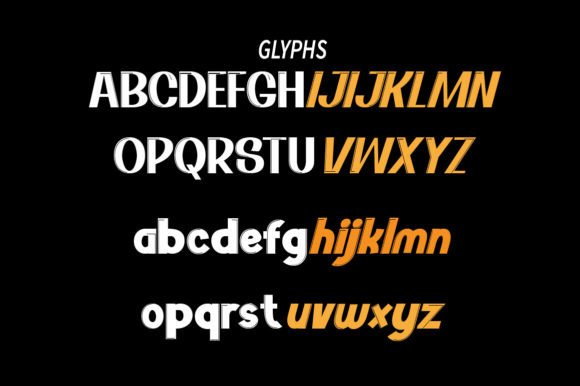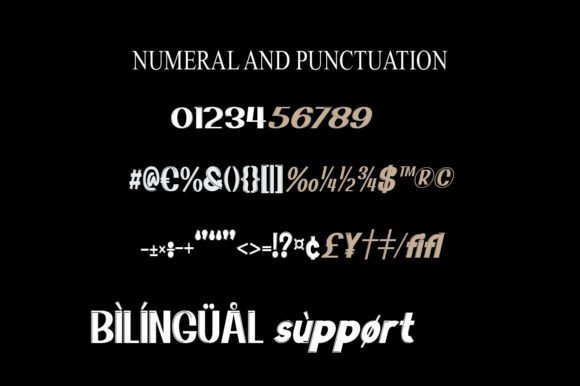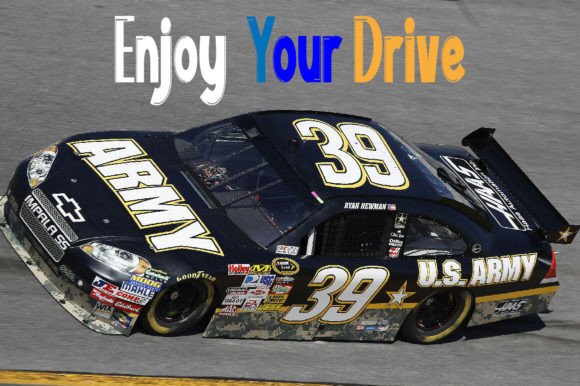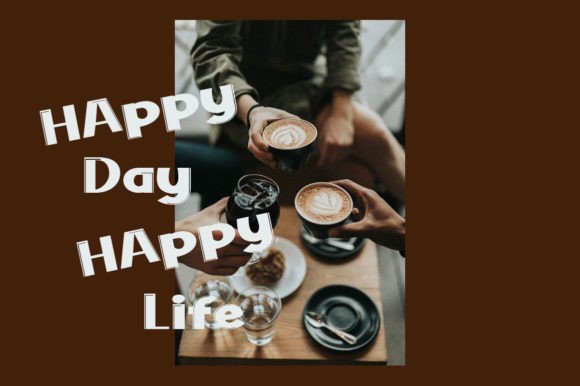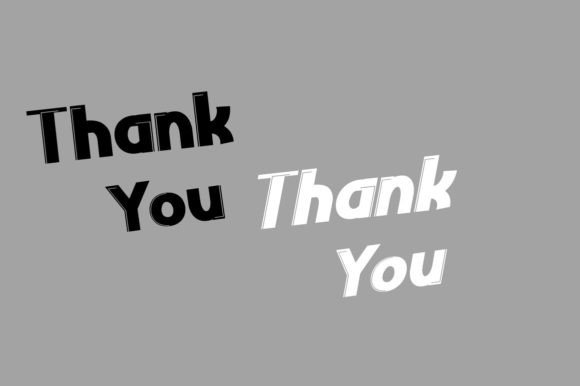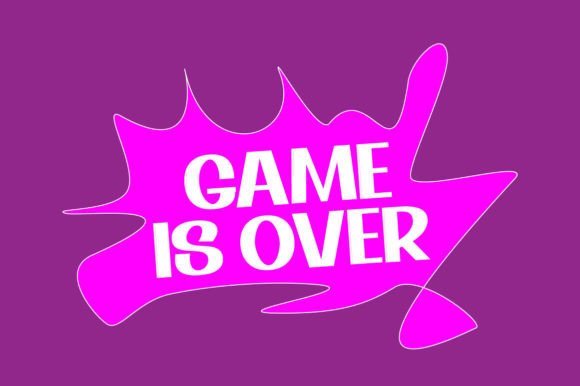
Introducing Arwana Font: The Futuristic Edge for Modern Designs
In the realm of typography, fonts play a pivotal role in shaping the visual identity of a project. Whether you’re a designer, craftsperson, or simply an enthusiast, having the right font can elevate your work from ordinary to extraordinary. This is where Arwana Font comes into play, a modern typeface that is redefining the way we approach design with its futuristic edge and geometric corners.
What is Arwana Font?
Arwana Font, specifically the Arwana Display font, is a contemporary typeface crafted with precision and a keen eye for detail. Its design is characterized by a futuristic aesthetic, marked by clean lines, geometric shapes, and sharp corners. This distinctive look makes it an ideal choice for projects that demand a modern and sleek appearance.
Key Features of Arwana Display Font
- Futuristic Edge: The font’s futuristic design gives it a unique and cutting-edge look, making it perfect for projects that require a modern feel.
- Geometric Corners: The geometric corners add a touch of sophistication and precision to the font, enhancing its overall aesthetic appeal.
- Versatility: Arwana Display font is incredibly versatile, suitable for a wide range of projects including fashion, magazines, logos, branding, photography, quotes, blog headers, posters, advertisements, postcards, books, websites, and more.
Applications of Arwana Font
The versatility of Arwana Display font makes it a valuable asset for various design projects. Here are some of the key areas where this font truly shines:
Fashion and Branding
In the fashion world, branding is everything. Arwana Font offers a stylish and contemporary look that can help fashion brands stand out. Its unique design can be used for logos, branding materials, and marketing collateral, giving brands a modern and sophisticated image.
Magazines and Photography
For magazines and photography projects, typography is crucial in setting the tone and aesthetic of the publication. Arwana Display font, with its clean and geometric design, can add a touch of elegance and professionalism to any magazine or photography portfolio.
Digital and Print Media
Whether it’s for blog headers, posters, advertisements, or postcards, Arwana Font is an excellent choice. Its readability and stylish appearance make it suitable for both digital and print media, ensuring your message is conveyed effectively across different platforms.
Why Choose Arwana Font?
With so many fonts available, why choose Arwana Display font? The answer lies in its unique combination of futuristic design, geometric precision, and versatility. Here are a few reasons why designers and craftspersons are gravitating towards this font:
- Unique Aesthetic: Arwana Font offers a distinctive look that can help your projects stand out in a crowded design landscape.
- High Readability: Despite its stylized appearance, the font maintains high readability, making it practical for a variety of applications.
- Customization: The font’s design allows for easy customization, enabling designers to adapt it to their project’s specific needs.
Arwana Display font is more than just a typeface; it’s a design statement. With its futuristic edge and geometric corners, it offers a modern aesthetic that can elevate a wide range of projects. Whether you’re working on a fashion brand, a magazine, a website, or any other design project, Arwana Font is a versatile and stylish choice that can help you achieve your creative vision.
Incorporating Arwana Font into your design repertoire can open up new possibilities for creativity and expression. Its unique blend of style, precision, and versatility makes it an invaluable resource for designers and craftspersons looking to make a statement with their work.